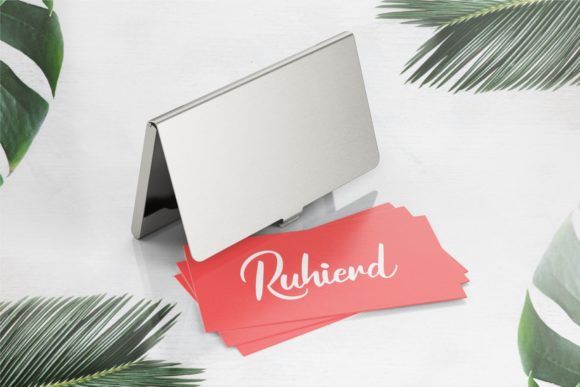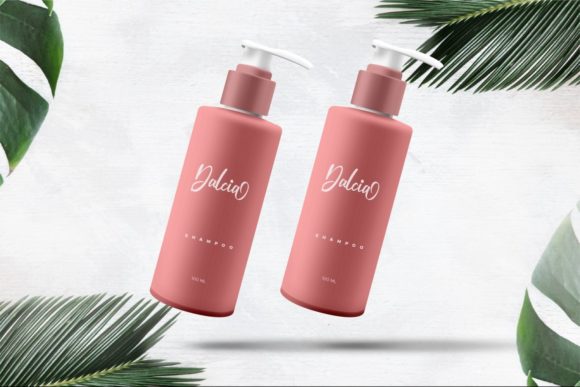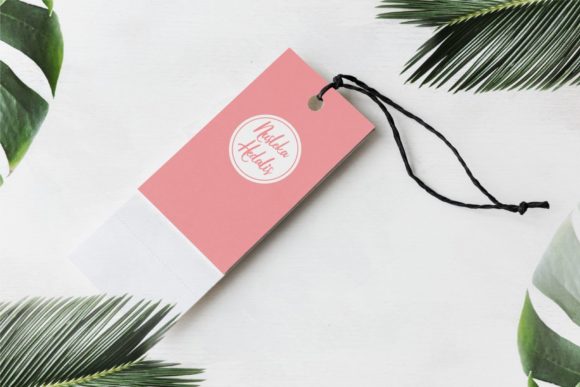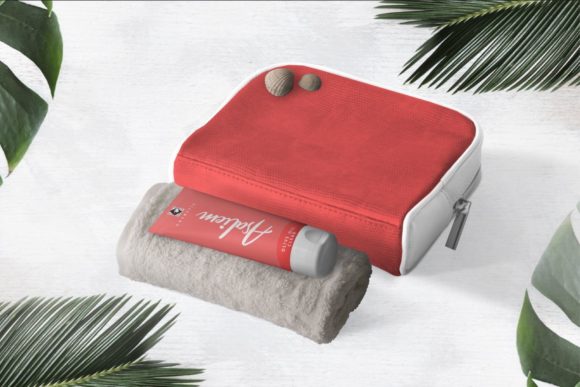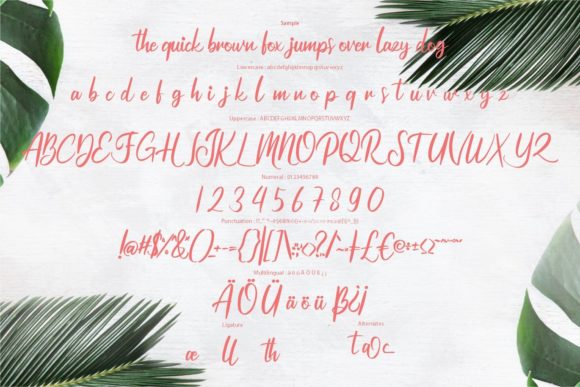
Introduction to Osthia Font
As designers, we’ve all been there – staring at a blank canvas, struggling to find the perfect font to bring our creative project to life. But what if we told you that the perfect font is just a download away? Enter the Osthia Font, an elegant and dainty handwritten font that’s sure to captivate your audience. With its sweet and delicate swashes, this original look is perfect for adding a touch of whimsy to your designs.
Whether you’re working on a high-quality design project or just need a free download to spice up your stationery, the Osthia Font is an invaluable resource for any designer. Its transparent background makes it easy to layer over other design elements, giving you endless possibilities for creative expression. And with its free availability, you can experiment with it to your heart’s content, without breaking the bank.
So why settle for a bland, generic font when you can elevate your designs with the unique charm of the Osthia Font? Dive in and discover the countless ways this beautiful font can take your creative projects to the next level.
Key Features of Osthia Font
- High-quality, elegant design suitable for various creative projects, including logos, branding materials, and digital art.
- Designed to be highly legible, with a clear and crisp font that works well in both print and digital formats.
- Unique, modern design aesthetic that sets it apart from more traditional fonts, making it a great choice for designers looking for something unique.
Honest Review: Osthia Font
I recently stumbled upon the Osthia Font, and I must say, it’s been a game-changer for my creative projects. The moment I laid eyes on it, I knew it was something special. With its unique blend of modern and vintage elements, this font is perfect for designers who want to add a touch of sophistication to their designs.
- ✨ High quality: The Osthia Font is crisp, clear, and incredibly detailed, making it perfect for both digital and print designs.
- ✨ Transparent background: This feature allows designers to easily overlay the font on any background, giving them complete creative control.
- ⚠️ Limited font variations: While the Osthia Font is incredibly versatile, it’s limited to a single style, which might not be suitable for designers who prefer a more extensive font library.
Overall, the Osthia Font is an excellent addition to any designer’s toolkit. Its high quality, transparent background, and free download make it a must-have resource for any creative project. While it has its limitations, I believe it’s an excellent choice for designers who want to add a touch of elegance to their designs.
Tips for Getting the Most Out of Osthia Font
Use Osthia Font with a transparent background to create a unique design effect. Experiment with different font sizes and colors to add visual interest to your project.
Osthia Font is ideal for use in logos, business cards, and other design projects where a high-quality, unique font is required. It’s also great for use in presentations, documents, and other written content where a creative font is desired.